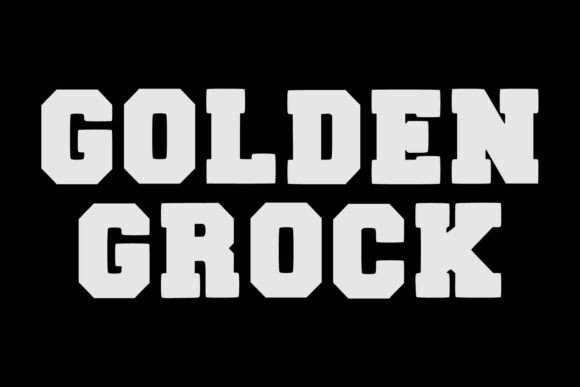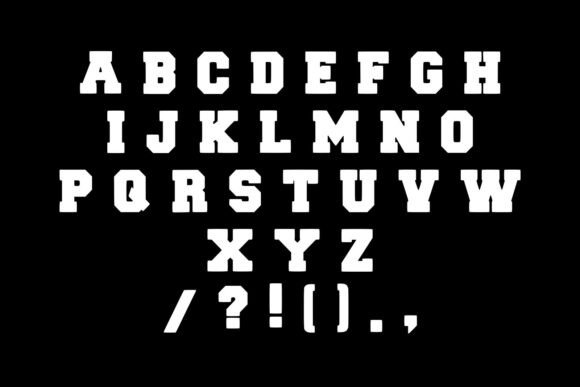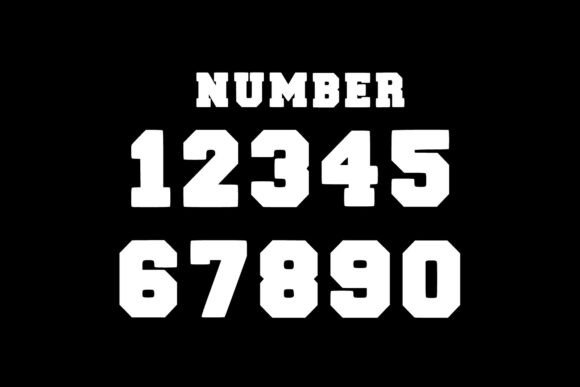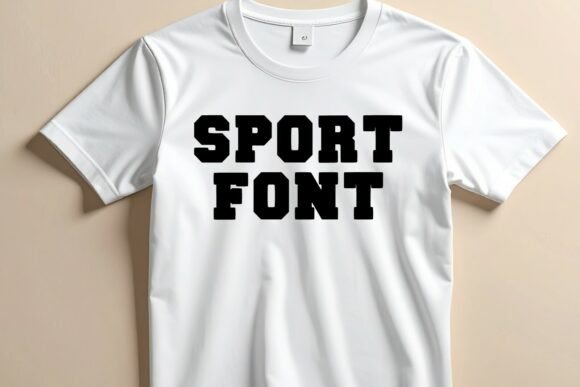
Introduction to Golden Grock Font
Do you remember the rush of excitement when you’re brainstorming a new creative project, and the perfect font suddenly pops into your mind? For designers, this moment is pure gold – especially when the font in question is the stunning Golden Grock Font. With its bold, confident lines and classic collegiate vibe, this varsity-style display font is the ultimate game-changer for any project requiring a strong, dynamic presence.
Whether you’re working on a logo, poster, or jersey design, the Golden Grock Font delivers a high-quality, iconic look that’s sure to leave a lasting impression. As a valuable design resource, this font is perfect for creatives seeking a free download that’s both versatile and stylish. Plus, its transparent background makes it easy to integrate into any design, from modern sports graphics to vintage campus visuals.
Key Features of Golden Grock Font
- High-quality design: The Golden Grock Font is a unique and stylish font perfect for creative projects, offering a sophisticated look that can elevate any design.
- Transparent background: This font features a transparent background, making it ideal for designs where you want the text to blend seamlessly with the background image.
- High-resolution design: The Golden Grock Font is designed at a high resolution of 300 DPI, ensuring that it looks crisp and clear on both digital and print materials.
- Unique characteristics: The font features a unique blend of modern and vintage elements, making it perfect for creative projects that require a touch of sophistication and elegance.
- Perfect for design projects: The Golden Grock Font is an excellent choice for designers working on creative projects, such as logo design, branding, and advertising materials.
Honest Review: Golden Grock Font
As a designer, I’m always on the lookout for high-quality design resources to elevate my creative projects. Recently, I had the chance to experiment with the Golden Grock Font, and I’m excited to share my honest review.
- ✨ The Golden Grock Font has a beautiful, elegant design that’s perfect for creating a luxurious and sophisticated feel in your projects.
- ✨ It’s incredibly versatile, making it suitable for a wide range of creative projects, from branding and packaging to digital design and more.
- ✨ The transparent background makes it easy to use in conjunction with other design elements and textures.
- ⚠️ The font might not be suitable for projects that require a more modern or edgy feel, as it has a more classic and traditional design.
- ⚠️ Some users may find the font a bit too ornate or detailed, which can be overwhelming in certain contexts.
Overall, I was impressed with the Golden Grock Font’s quality and versatility. While it may not be the perfect fit for every project, it’s definitely a valuable addition to any designer’s toolkit. With its free download option and transparent background, it’s an excellent choice for designers looking to add a touch of luxury to their creative projects.
How to Use Golden Grock Font
The Golden Grock Font is a high-quality design resource perfect for any creative project. With a transparent background, this font is easy to use and customize to fit your needs.
Using Golden Grock Font in Design Software
You can use the Golden Grock Font in popular design software such as Canva, Adobe Photoshop and Illustrator, or PowerPoint and Word.
Tips for Getting the Most Out of Golden Grock Font
For the best results, use the Golden Grock Font in conjunction with other high-quality design resources. Experiment with different font sizes, colors, and styles to create a unique look.
The Golden Grock Font is perfect for a variety of creative projects, including logos, branding materials, and marketing materials. Its versatility and high-quality design make it a valuable addition to any design arsenal.
Alternatives to Golden Grock Font
Pacifico is a high-quality, elegant script font that is perfect for creative projects that require a touch of sophistication. It features a transparent background and is ideal for use in wedding invitations, branding, and other design elements where a beautiful script font is needed.
Pacifico is similar to Golden Grock Font in its elegant and sophisticated style, but it has a more refined and polished look. While Golden Grock Font has a more rustic feel, Pacifico is ideal for projects that require a more refined and high-end look.
Does the Golden Grock Font have a transparent background?
No, the Golden Grock Font does not have a transparent background. The font is a high-quality design resource with a solid background. However, you can use the font in conjunction with a transparent background image or design element to create a unique visual effect.